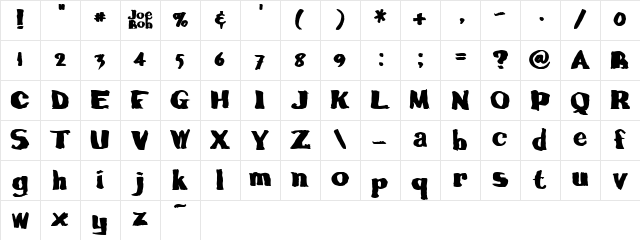
calamityJoe Regular Free Font
calamityJoe Regular
Design Context for calamityJoe
calamityJoe is a composed and adaptable typeface that performs quietly and consistently across a wide range of design contexts.